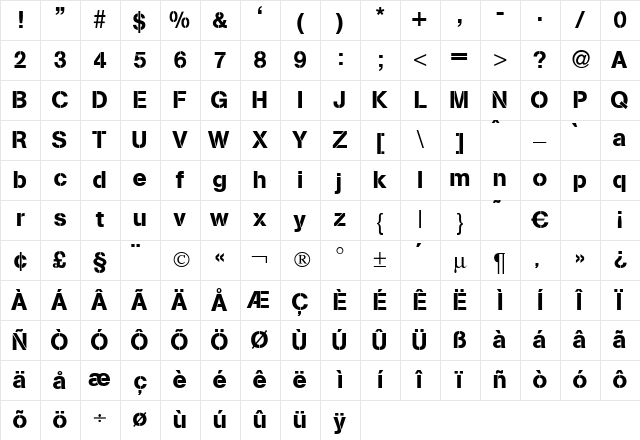
AbsolutDB Normal Free Font
AbsolutDB Normal
AbsolutDB Family
Design Context for AbsolutDB
AbsolutDB is a composed and adaptable typeface that performs quietly and consistently across a wide range of design contexts.